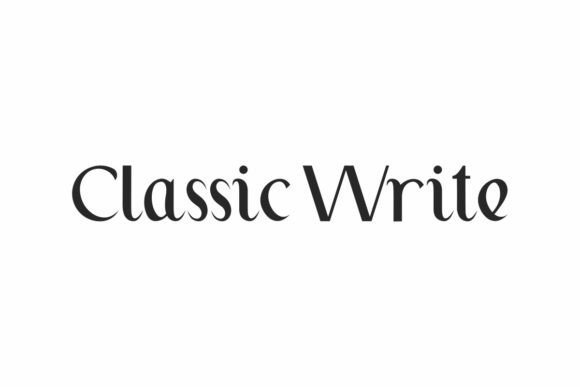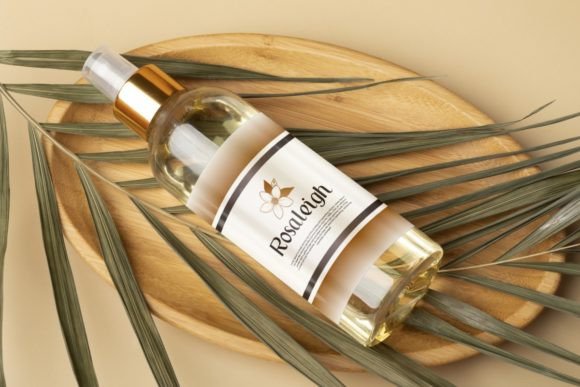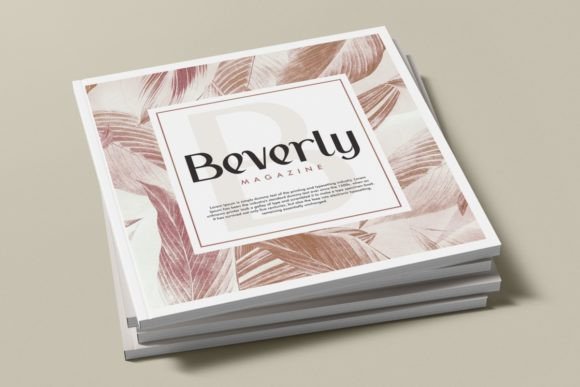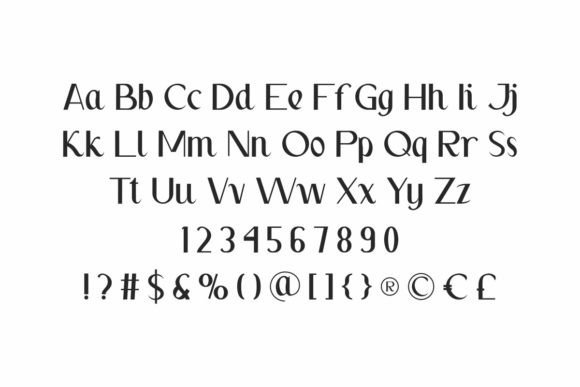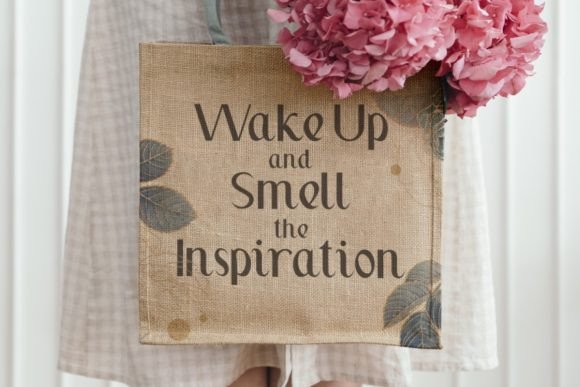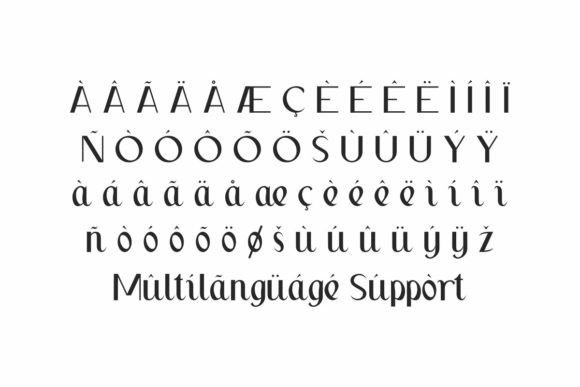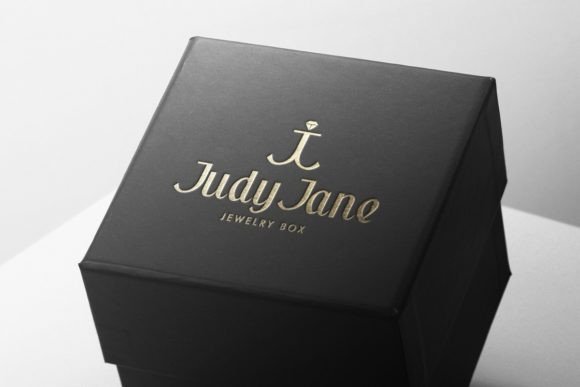
Bring a Touch of Handwritten Charm to Your Creations
Have you ever sat down with a blank piece of paper, a pen, and a blank slate, waiting for inspiration to strike? For many creatives, this is the moment when ideas start flowing, and projects take shape. Whether you’re a seasoned designer or a crafty enthusiast, there’s something special about putting pen to paper and watching your thoughts come to life.
That’s why we’re excited to introduce the Classic Write Font, a simple and elegant handwritten display font that’s perfect for adding a personal touch to your designs. Whether you’re working on a digital project, crafting a handmade card, or creating a presentation that needs a little extra flair, Classic Write Font is the perfect choice. Its versatility and timeless charm make it a valuable asset for designers who want to add a touch of personality to their work.
Classic Write Font Key Features
- Font Family: Classic Write Font is a unique, serif font designed for writing and publishing.
- Unique Characteristics: Classic Write Font features a classic, elegant design with subtle flourishes and a warm, traditional feel, making it perfect for novels, essays, and other written works.
Classic Write Font Review
First impressions matter, and the Classic Write Font ✨ does not disappoint. Its elegant and timeless design makes it perfect for those looking to add a touch of sophistication to their text. The font’s subtle flair and classic feel make it an excellent choice for formal documents, business reports, and even book covers.
The Classic Write Font is highly legible, making it a great choice for body text. It’s also highly customizable, allowing you to adjust the size, color, and style to suit your needs. The font’s high x-height also makes it easier to read, especially for those with visual impairments.
- Timeless and elegant design ✨
- Highly legible and customizable
- Perfect for formal documents and business reports
- May not be suitable for modern or playful designs ⚠️
- Lacks bold and italic styles in some versions
Overall, I’m impressed with the Classic Write Font. While it may not be the most versatile font, its classic design and high legibility make it an excellent choice for those looking for a timeless and elegant look.
Tips for Getting the Most Out of Classic Write Font
Use Classic Write Font for formal or traditional designs, such as wedding invitations, certificates, or business cards.
Pair Classic Write Font with a bold or sans-serif font for a striking contrast.
Wedding invitations
Certificates
Business cards
Formal event programs
Alternatives to Classic Write Font for Designers
Playfair Display is an elegant, high-end serif font suitable for titles, headings, and luxury branding. It’s perfect for creating a sophisticated, vintage look. When to use: High-end branding, luxury products, and formal invitations.
Compared to Classic Write Font, Playfair Display has a more refined and ornate design, making it ideal for premium branding and high-end design projects.
Georgia is a serif font designed for body text, ideal for long-form content, and news articles. It’s clear, readable, and suitable for web and print use. When to use: Body text, news articles, and long-form content.
Compared to Classic Write Font, Georgia is more readable and suitable for large blocks of text, while Classic Write Font is more decorative and suitable for titles and short text.
Lato is a modern sans-serif font suitable for body text and titles. It’s clean, minimalist, and highly legible. When to use: Web design, digital products, and modern branding.